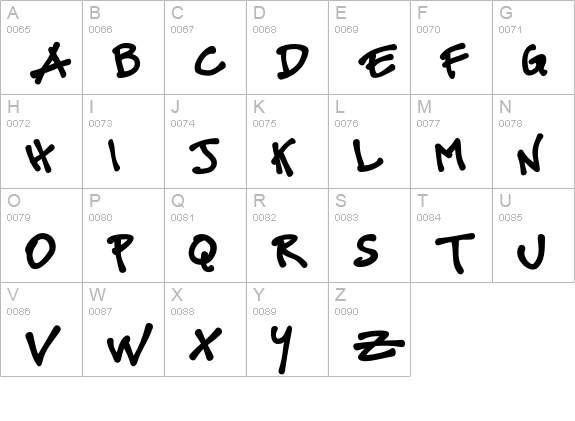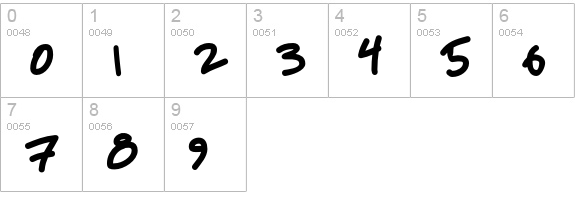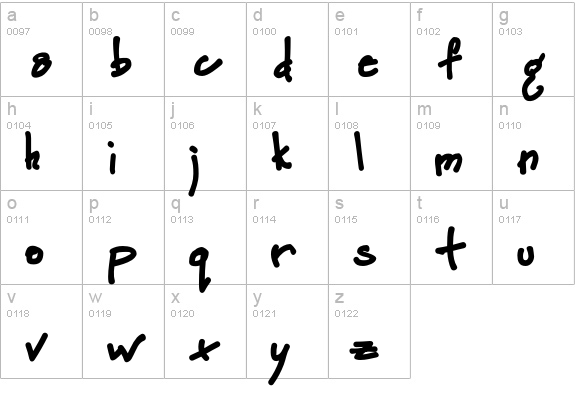
PetescriptBold Font Details
PetescriptBold font is a visually captivating and beautifully designed typeface that will add a touch of elegance and sophistication to any project. With its bold and striking letterforms, this font is perfect for headlines, titles, and logos that demand attention. The distinctive script style of PetescriptBold font exudes a sense of creativity and uniqueness, making it an ideal choice for those seeking to make a statement with their typography. Whether you're designing a wedding invitation, a magazine cover, or a branding project, this font will effortlessly elevate your design to the next level. But what sets PetescriptBold font apart is not just its stunning aesthetics. It is also freely available to download at FontsMarket.com, making it accessible to any designer or creative individual who wants to incorporate it into their work. This means that you can bring your vision to life without any limitations or financial constraints. In addition to its beauty and accessibility, PetescriptBold font also offers exceptional versatility. It can be used in a variety of contexts, from high-end fashion editorials to playful and whimsical advertisements. Its bold and confident nature ensures that your message will be delivered with impact and style. So, if you're looking for a font that combines elegance, uniqueness, and the freedom to use it as you please, look no further than PetescriptBold font. Download it for free at FontsMarket.com and let your creativity soar.